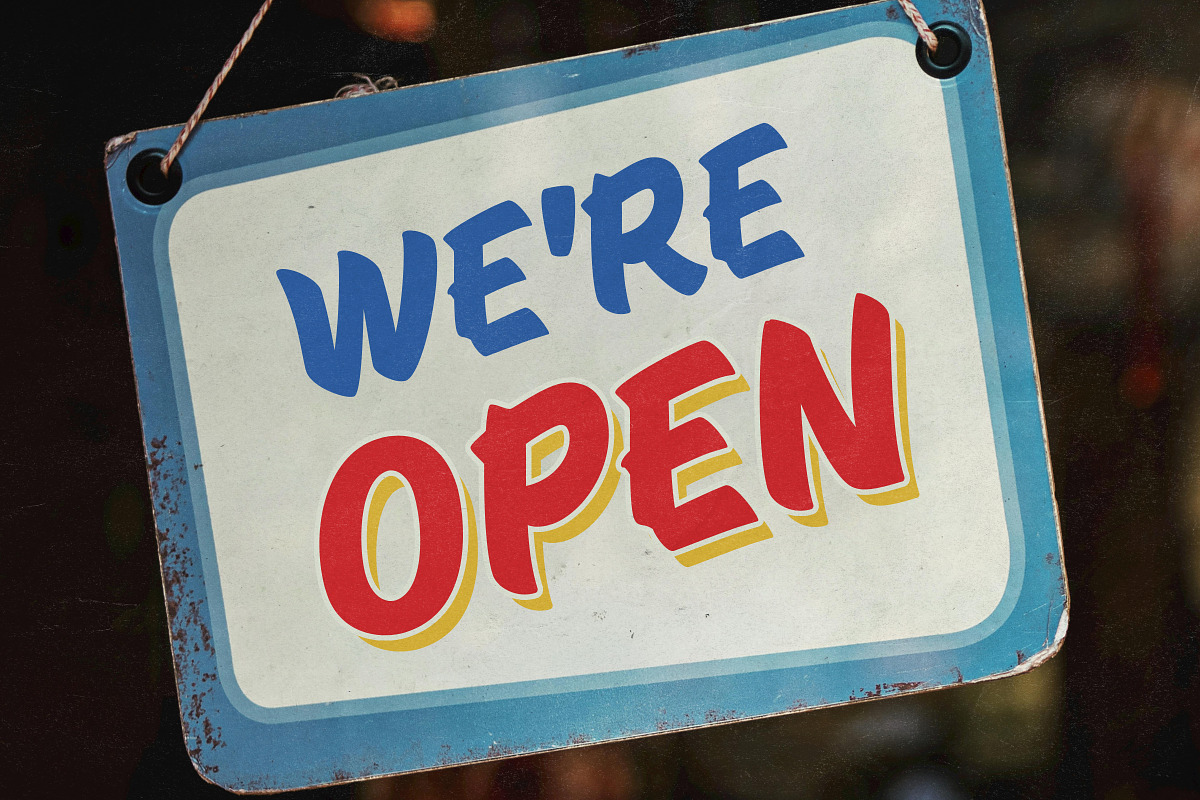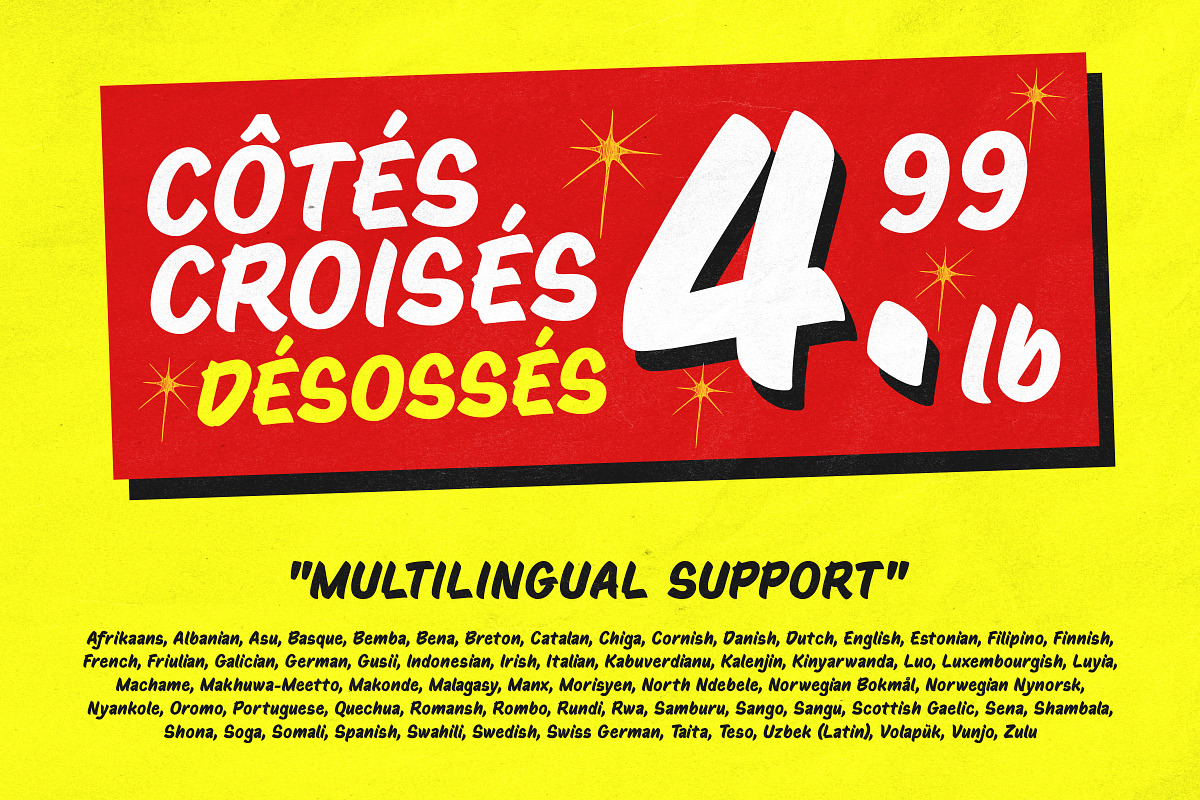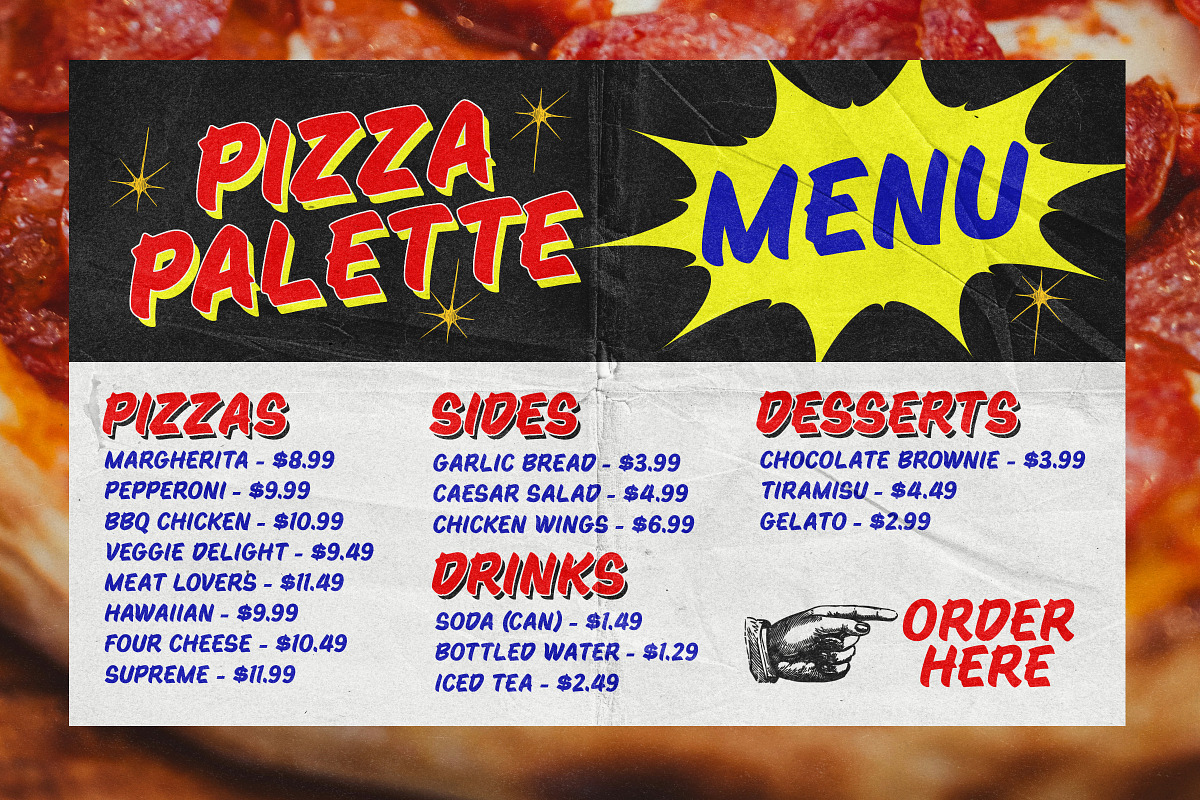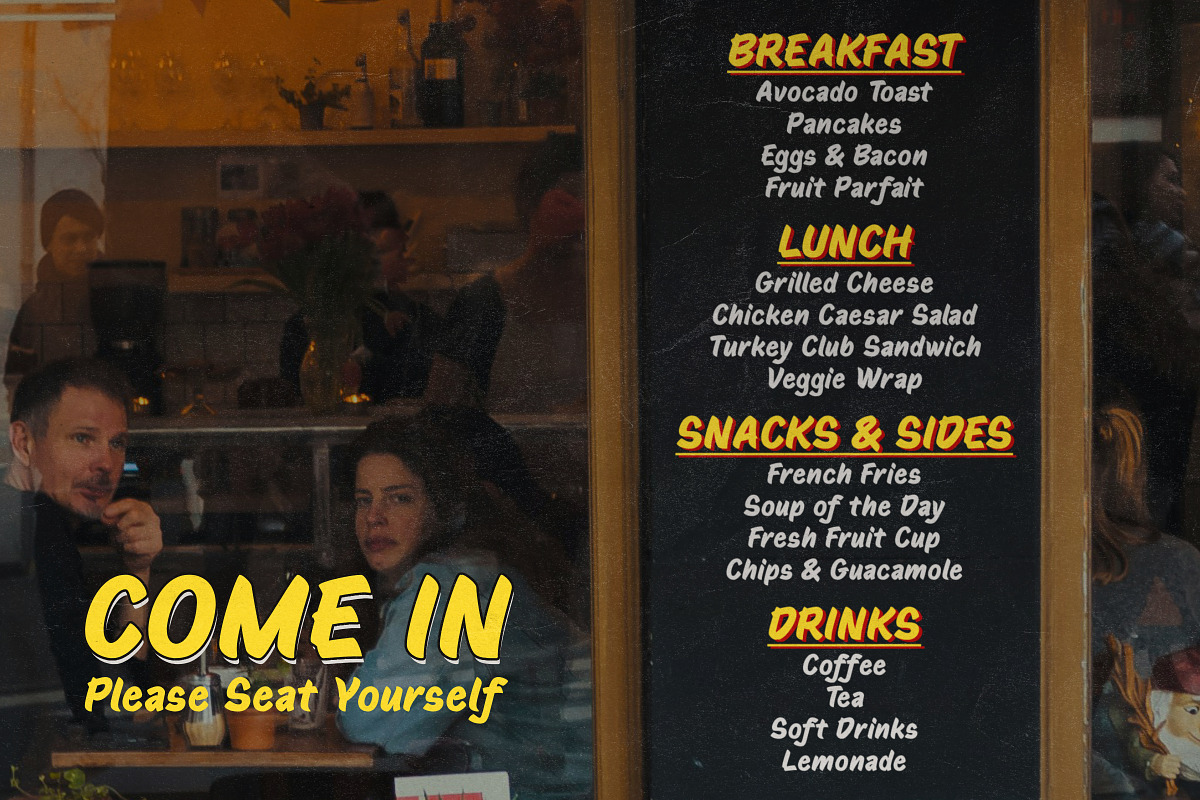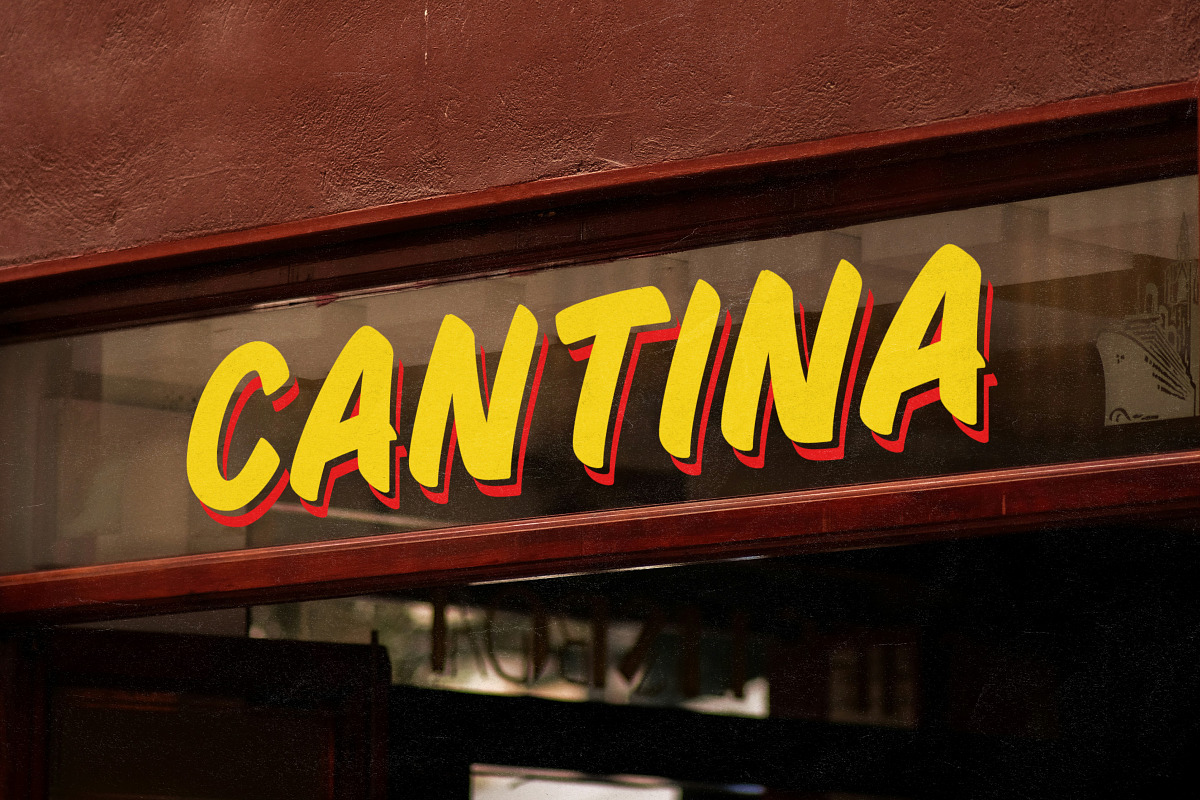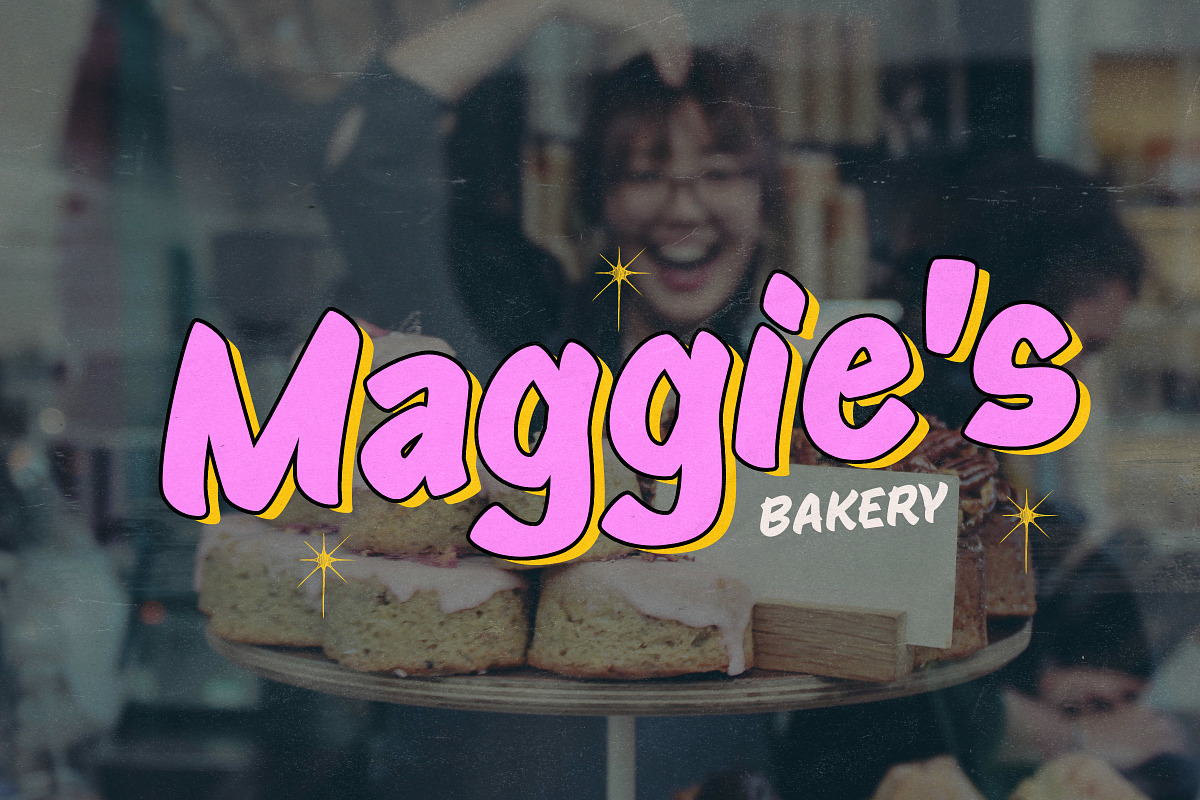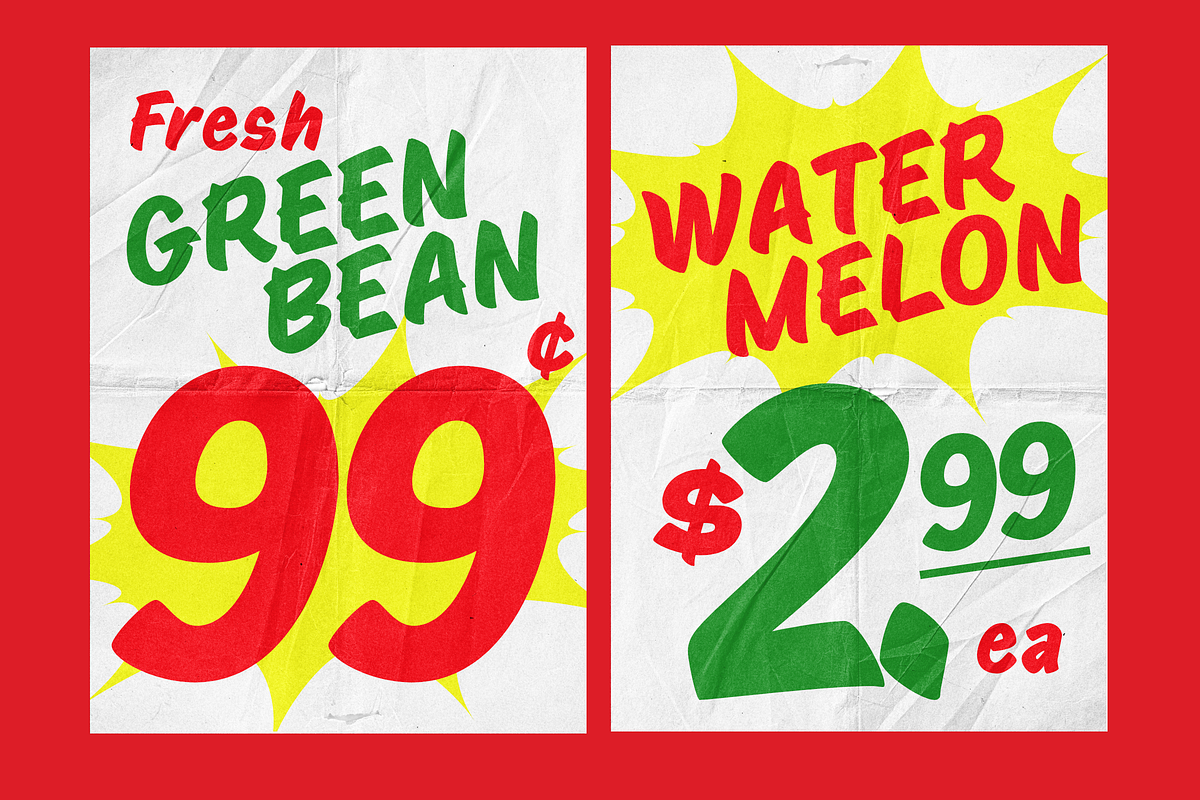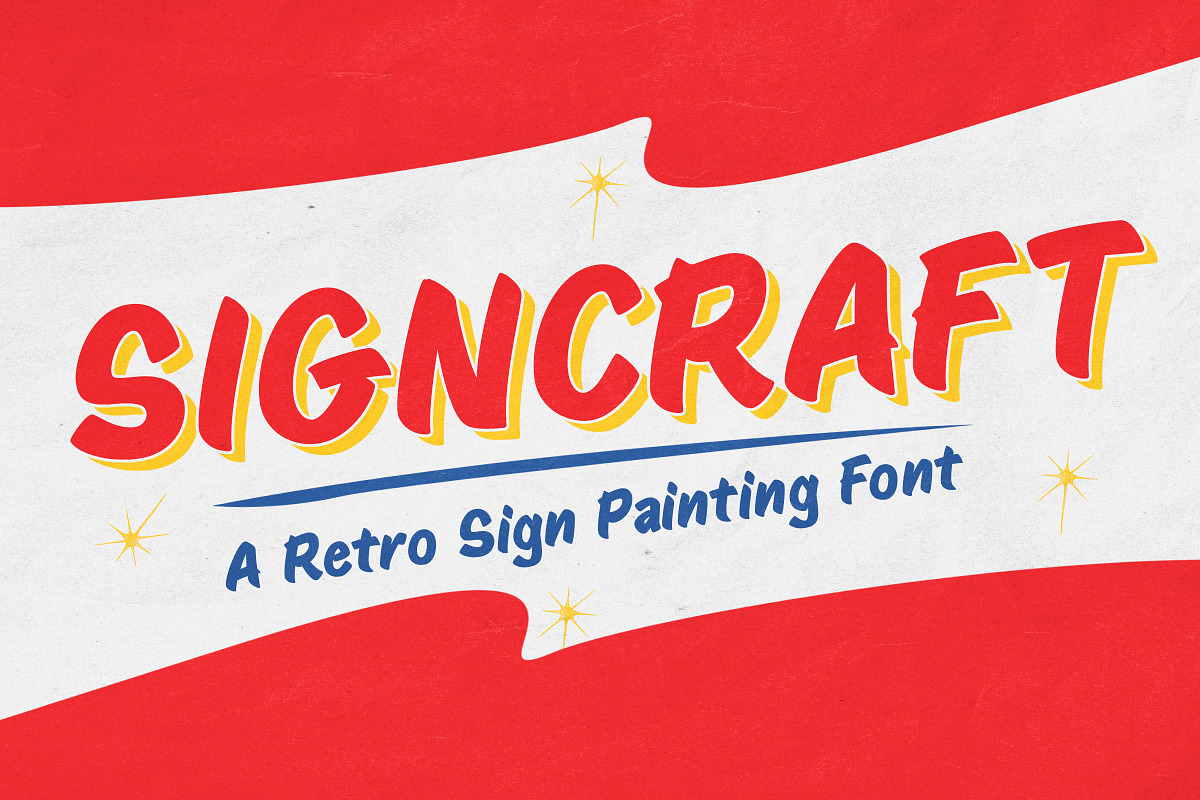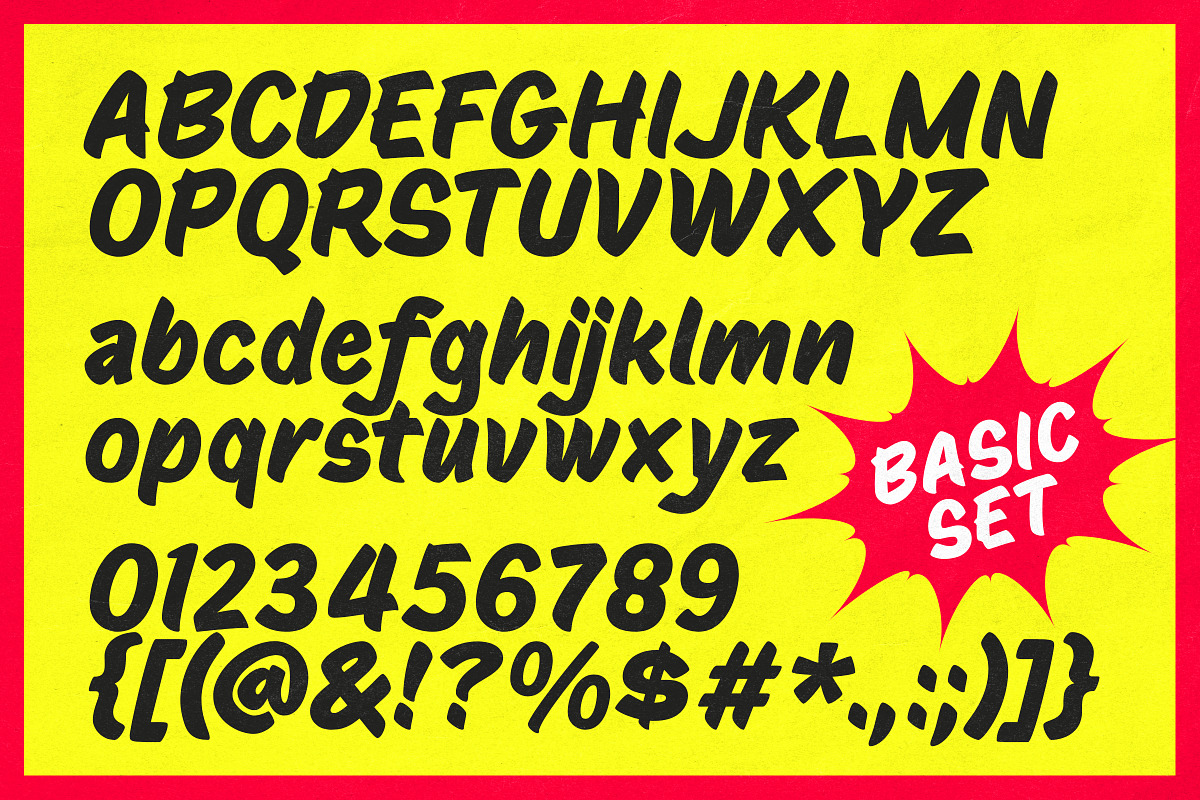
Signcraft - Retro Sign Painting Font
Signcraft is a retro-inspired sign painting font with big personality and vintage flair. Its bold brush strokes, playful rhythm, and hand-painted energy make it perfect for grabbing attention in storefronts, menus, posters, and packaging.
With clean curves and high-impact letterforms, Signcraft delivers that classic market-style signage vibe without losing clarity. It comes with uppercase and lowercase characters, numerals, punctuation, and multilingual support.
Whether you're designing for food trucks, restaurants, retail displays, or merch drops, Signcraft brings your message to life with nostalgic charm.